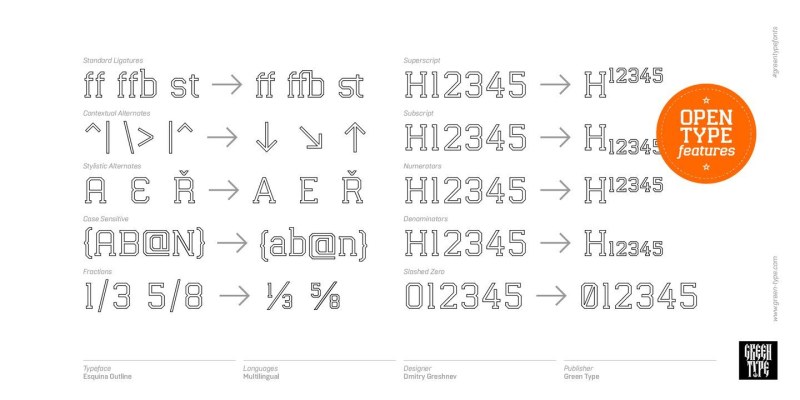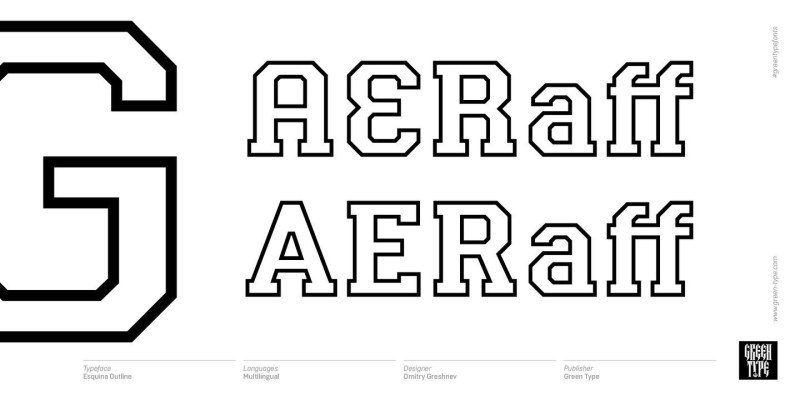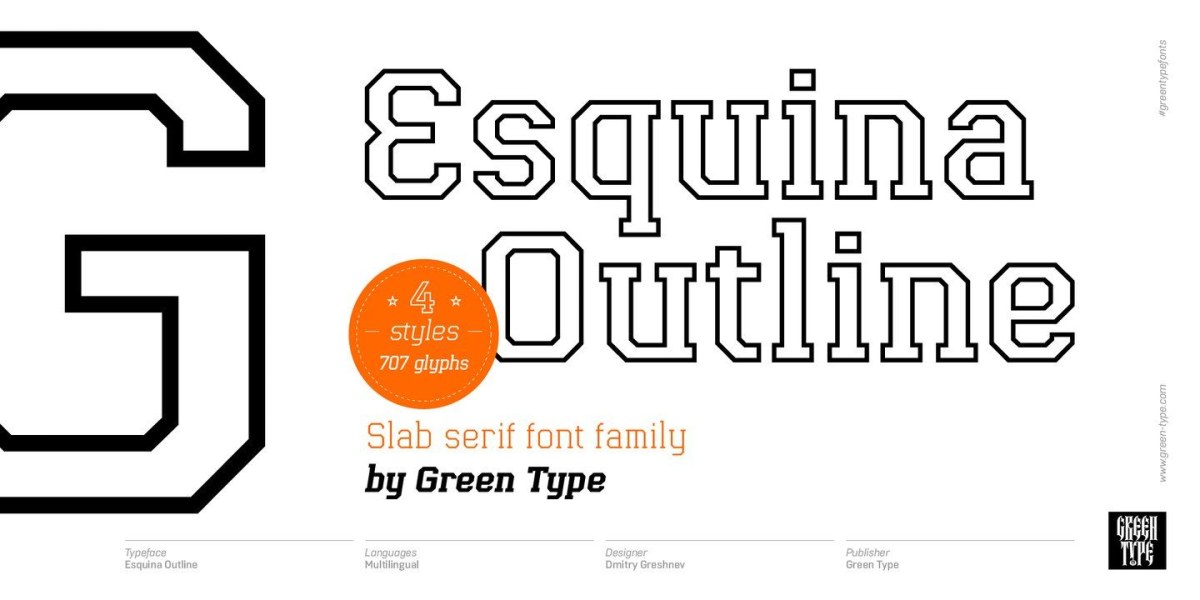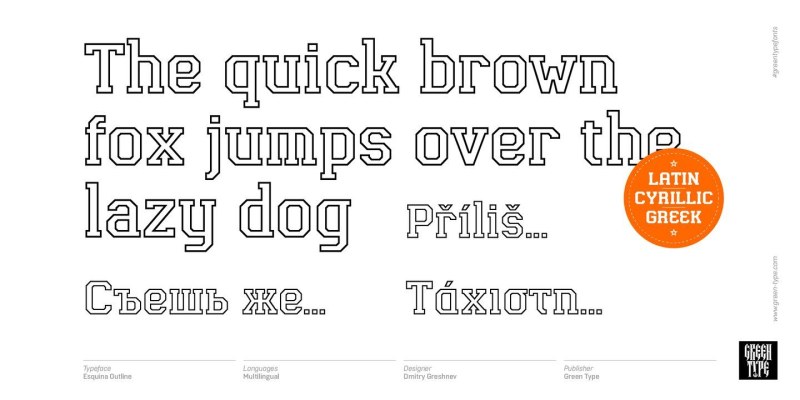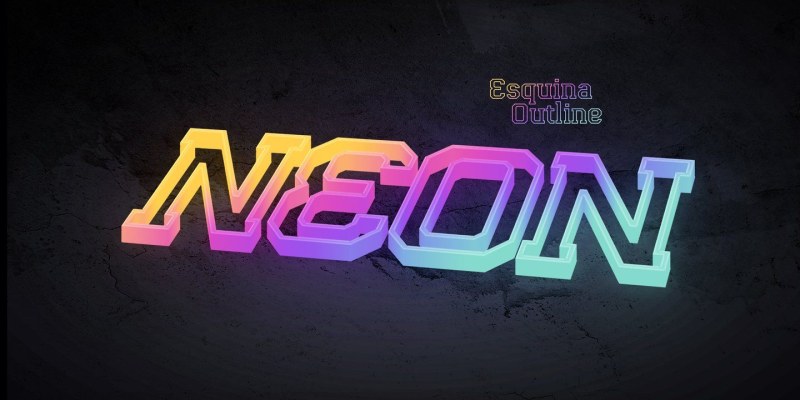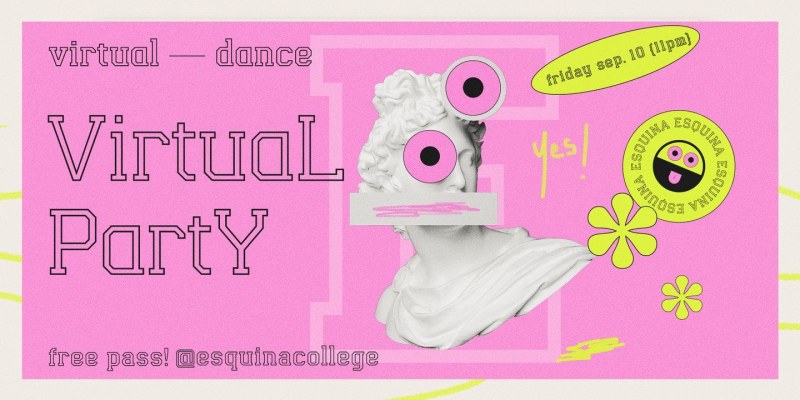
Esquina Outline Font Family
Esquina Outline is a family of octagonal slab serif fonts. Designed for use in outdoor advertising, branding, packaging. Esquina Outline is also ideal for sports related…
Esquina Outline is a family of octagonal slab serif fonts. Designed for use in outdoor advertising, branding, packaging. Esquina Outline is also ideal for sports related materials such as team logos, flyers, posters and more.
Where Esquina Outline Font Family works best
Complete brand systems
With multiple weights, Esquina Outline Font Family can carry a whole identity — logo, headings, body copy and captions — consistently across print and web.
Websites & apps
Families let you set hierarchy with weight instead of switching typefaces, which keeps interfaces fast and coherent.
Print collateral
Brochures, catalogues and business cards benefit from a family that covers display and text sizes.
What is Esquina Outline Font Family good for?
Esquina Outline Font Family is a Font Family typeface tagged Branding, Font Family, Packaging, Poster. It works well for headlines, logos, posters, social media graphics and branding projects that need a distinctive font family look.